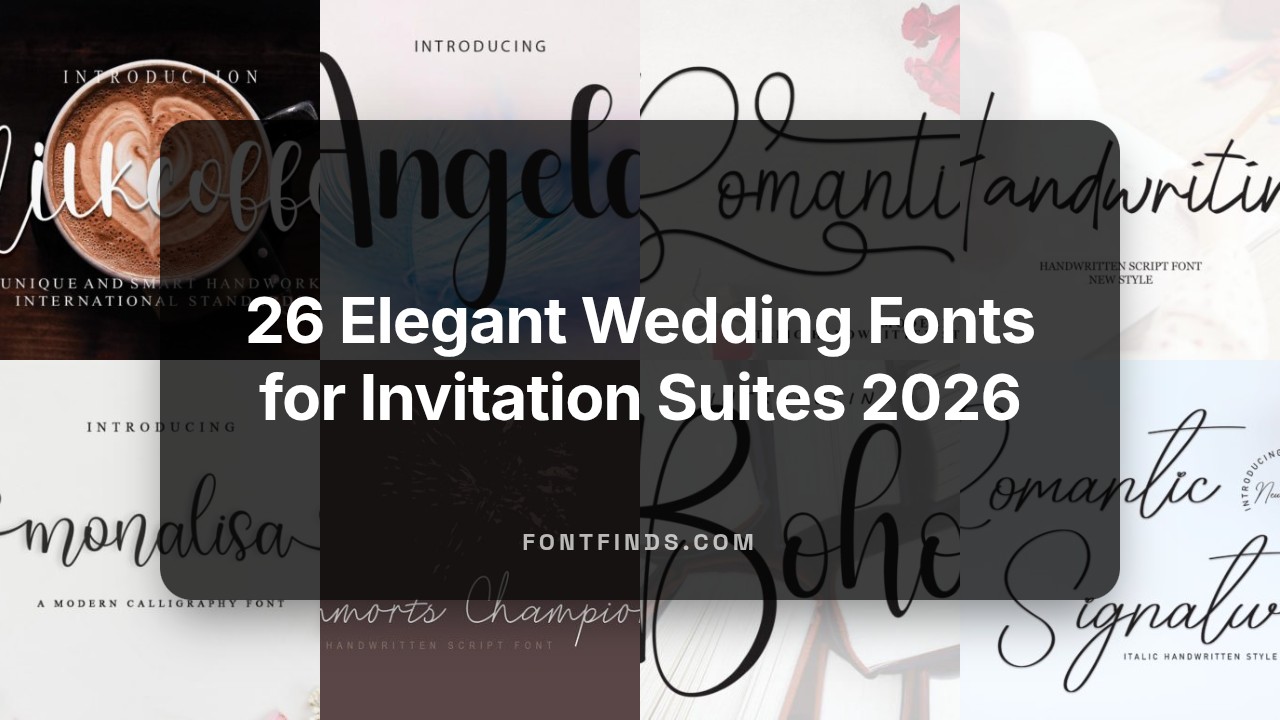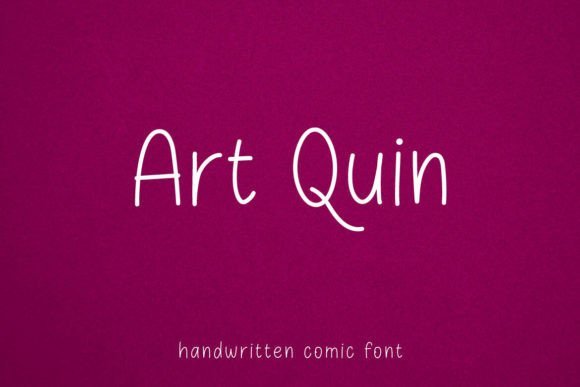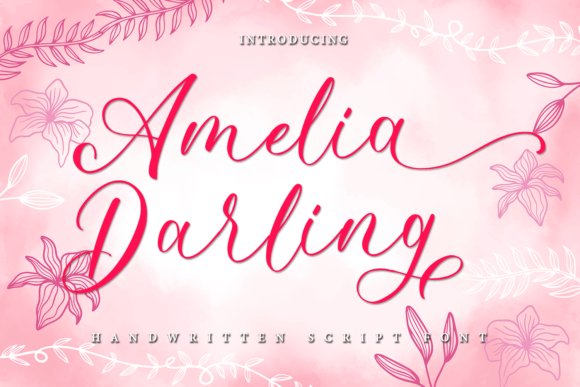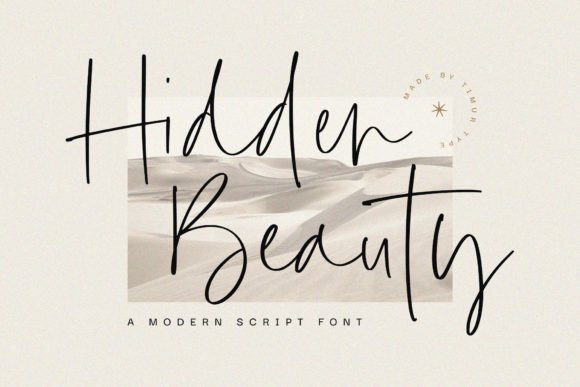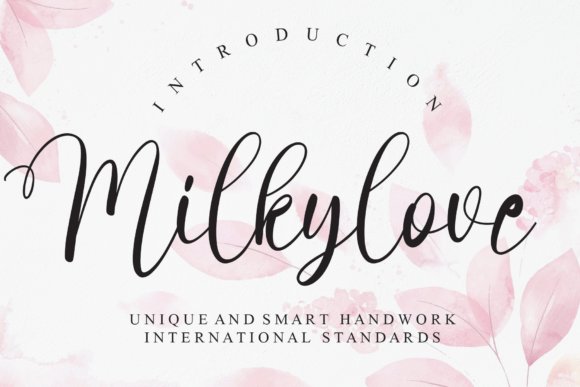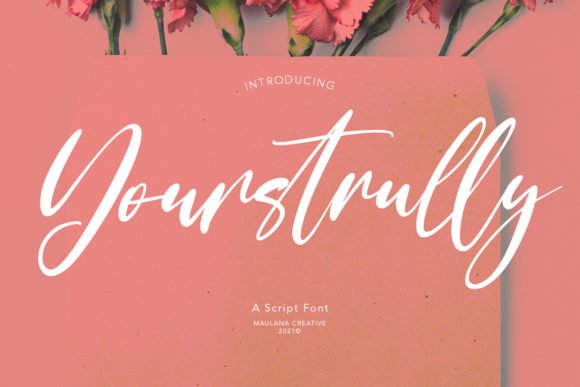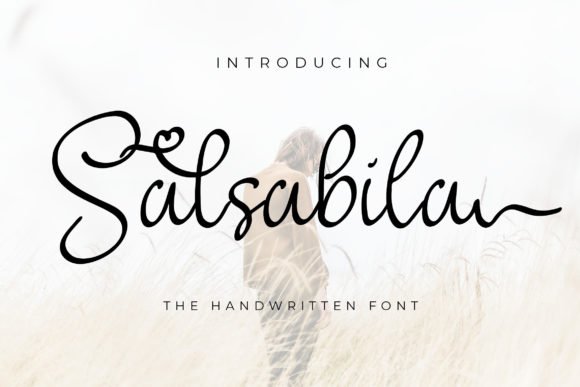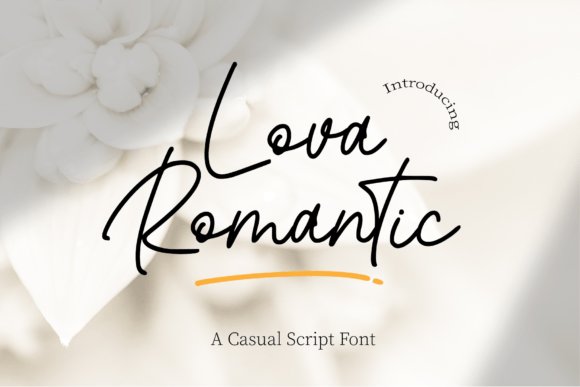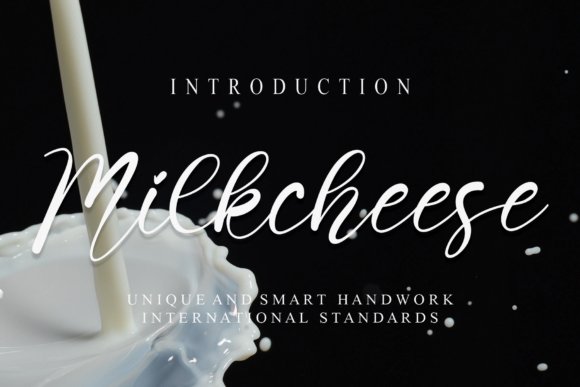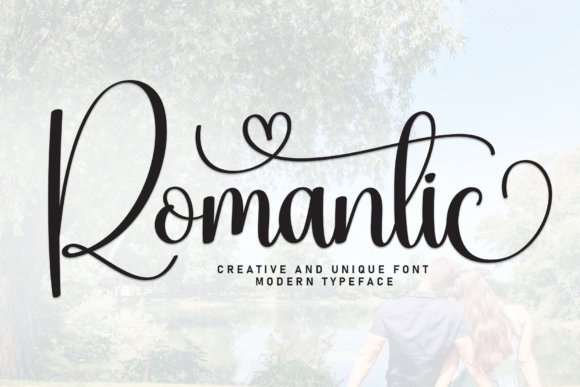
26 Elegant Wedding Fonts for Invitation Suites 2026
Finding the right wedding fonts serves as the first step in creating a cohesive look for your ceremony materials. Your choice of typeface communicates the personality of the event to every guest receiving an envelope.
Browse our list of 26 curated styles to match your specific vision. From romantic scripts to clean serif options, these selections help build a lasting impression.
1. Smithe Signature Script Font
Smithe Signature Script Font
Smithe Signature Script Font – Smithe Signature brings a refined touch to your typography collection through its slender, cursive letterforms. The character set features subtle, slanted curves that lend a grace often absent in standard scripts. It works well when you need a professional yet approachable aesthetic for personal branding or physical goods like packaging.
Designers will appreciate how these letters maintain legibility despite their ornate swirls. Whether you are printing labels for handmade items or crafting a logo for a boutique business, this typeface balances decorative flair with clarity. It avoids clutter, keeping your visual communication clean and easy to read.
2. Morning Blue Sky Handwritten Font
Morning Blue Sky Handwritten Font
Morning Blue Sky Handwritten Font – Morning Blue Sky offers a quiet, understated appearance that mimics natural penmanship. Its light weight makes it a sharp choice for layouts where text needs to exist without overwhelming the surrounding imagery. The spacing is intentional, allowing each stroke to breathe within a composition.
You might find this script useful for projects requiring a soft, human-centric feel rather than a rigid digital look. It pairs comfortably with minimal layout styles, making it a reliable pick for headers or personalized stationery. Its clean design ensures that your work remains the primary focus.
3. Art Quin Handwritten Font
Art Quin Handwritten Font
Art Quin Handwritten Font – Art Quin provides a stark, minimalist take on the handwritten style. Its thin alphabet is stripped back to the basics, leaving behind extraneous flourishes for a look that feels honest and direct. This lack of bulk helps the font stand out in high-contrast layouts or crowded advertisements.
Choosing this typeface means opting for a subtle visual texture rather than a heavy focal point. It fits well in social media graphics where screen readability is vital and space is limited. The consistent line weight prevents the letters from disappearing against complex backgrounds or photographs.
4. Amelia Darling Handwritten Font
Amelia Darling Handwritten Font
Amelia Darling Handwritten Font – Amelia Darling offers a slender, graceful aesthetic that stands out in contemporary design work. Its fine lines carry an air of sophistication, making it a reliable choice for projects requiring a refined, high-end visual tone.
Designers often pick this typeface for branding tasks where a delicate touch is needed to capture viewer attention. The letterforms balance readability with an artistic flair that feels both current and distinctly polished on digital screens or printed media.
5. Hidden Beauty Handwritten Font
Hidden Beauty Handwritten Font
Hidden Beauty Handwritten Font – Hidden Beauty provides a clean, minimalist approach to script typography. The thin strokes maintain clarity even at smaller sizes, allowing for wide application across various professional print jobs or graphic layouts.
This font functions well for wedding invitations or product labels where visual clutter must remain low. It conveys a sense of intentionality, grounding your message without overwhelming the other graphical elements present on the page.
6. Monalisa Handwritten Font
Monalisa Handwritten Font
Monalisa Handwritten Font – Monalisa brings a classic cursive flow that creates a soft, romantic mood in your graphics. The inclusion of PUA encoding allows designers to swap between unique glyphs and ornamental swashes to achieve the right look for any header or title.
Working with these characters feels natural, as the spacing remains consistent throughout various letter combinations. It succeeds at adding warmth to otherwise flat designs, giving your typography a human touch that appeals to the viewer immediately.
7. Angela Script Font
Angela Script Font
Angela Script Font – Angela offers a soft, flowing aesthetic that mimics the fluidity of real ink on paper. Its loops and sharp terminals provide a natural rhythm that feels personal and approachable for wedding stationery or brand identities.
Using this typeface adds a gentle touch to headers without overwhelming the composition. The balanced stroke width ensures high legibility across printed cards and digital displays alike.
Using the proper typography creates a polished look for all your printed materials. Take your time to test these styles against your color palette and card stock.
Enjoy the process of picking the perfect match for your celebration. These options offer plenty of character for any project.